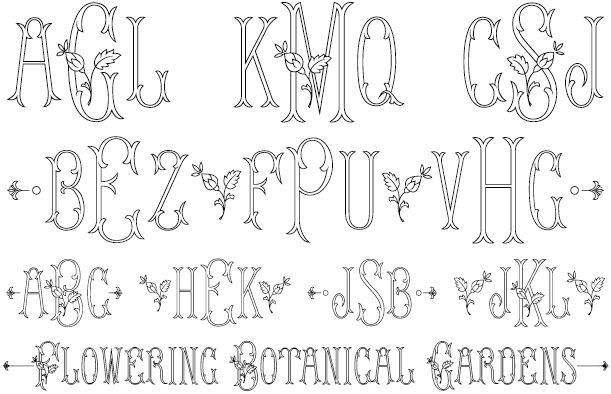
MFC Budding Monogram
About MFC Budding Monogram
The inspiration source for Budding Monogram is a unique embroidery alphabet from the early 1900\’s. The original design was a Capitals only letterset adorned with a budding flower. We have expanded that character set to include both floral adorned Capitals,…